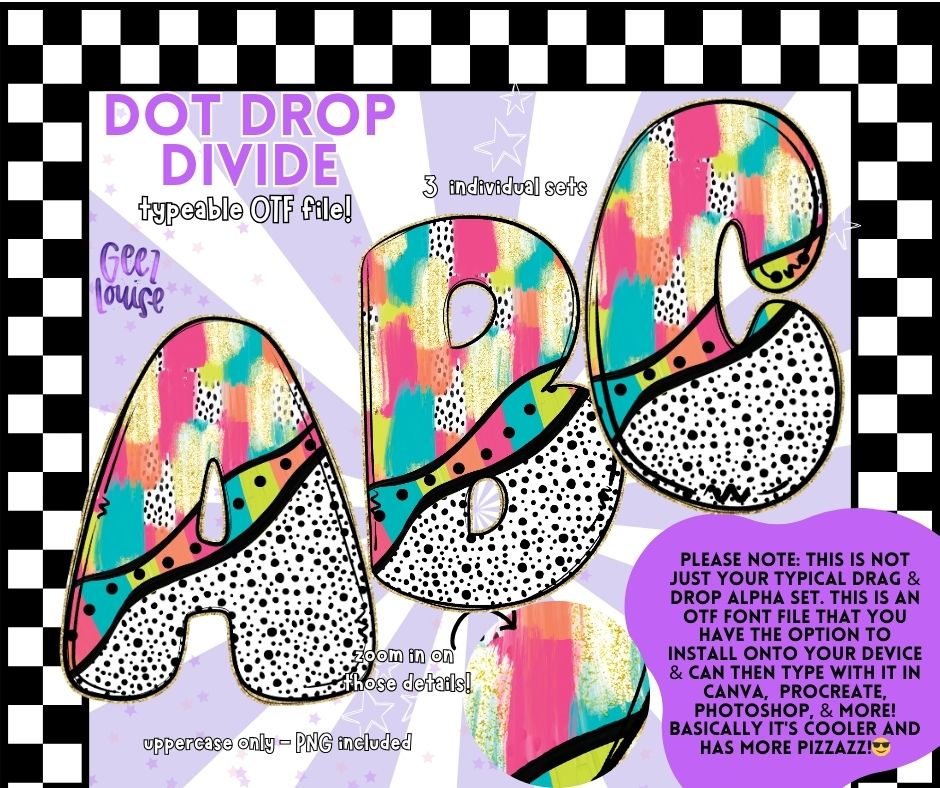
Dot Drop Divide - TYPEABLE OTF Font - Alpha Set - Digital Download- PNG
Dot Drop Divide OTF Font Set | Bold Uppercase Alphabet + PNGs – Color Pop Meets Chaos
⚡Divided but never dull! The Dot Drop Divide OTF Alpha Set is here to crash your creative block with a riot of neon color, grunge brush strokes, and retro-inspired dot patterns—all split with wild style. With three individual OTF fonts included, you’re getting triple the flair and triple the fun.
Uppercase only and unapologetically bold, this typeable font set makes your designs POP in Canva, Procreate, Photoshop, and beyond. Install and type—no dragging, no fuss!
Perfect for statement-making graphics, funky shirt designs, and anyone ready to stand out loud!